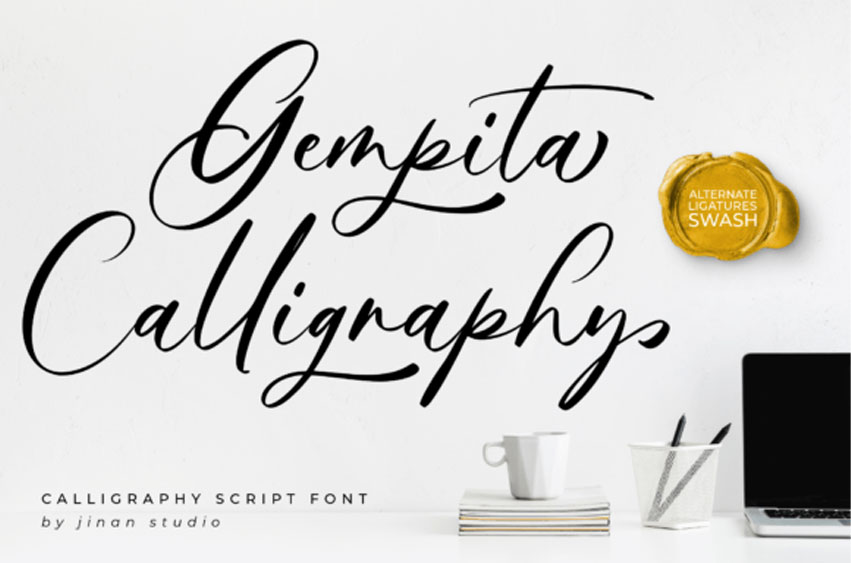
Gempita Calligraphy Font is a stream of elegant contours artistically designed to exude a sense of sophistication. This captivating calligraphy script font is artfully crafted with exquisite flowing lines and meticulous strokes, amplifying your projects with an elevated touch of charm.
Whether it’s enhancing the allure of wedding invitations, enriching the warmth of greeting cards, or adding a classy distinction to branding, Gempita Calligraphy seamlessly transforms your creations into exceptional pieces of art.